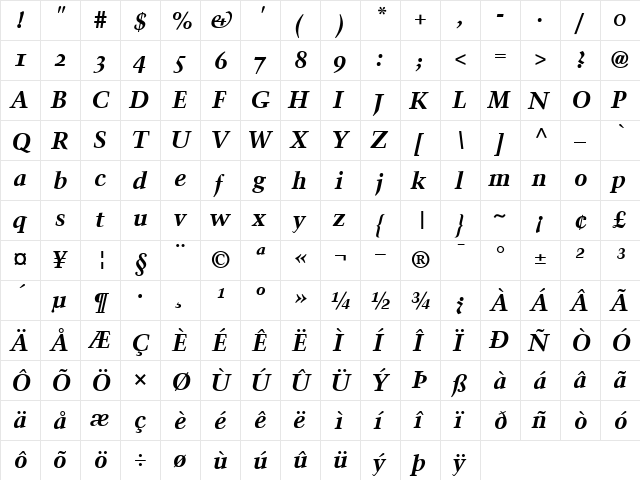
TrumpMediaevalOldStyleFigures BoldItalic Font Preview
Design Context for TrumpMediaevalOldStyleFigures Typeface
TrumpMediaevalOldStyleFigures carries the refined structure of traditional serif typography, with bracketed terminals and considered proportions that communicate credibility and craft. The slanted form adds forward momentum and visual energy. Its bold stroke weight gives it real presence on the page.
Pro Tip: Set TrumpMediaevalOldStyleFigures with slightly loose tracking in headlines to let each letterform's detail read clearly at display sizes.